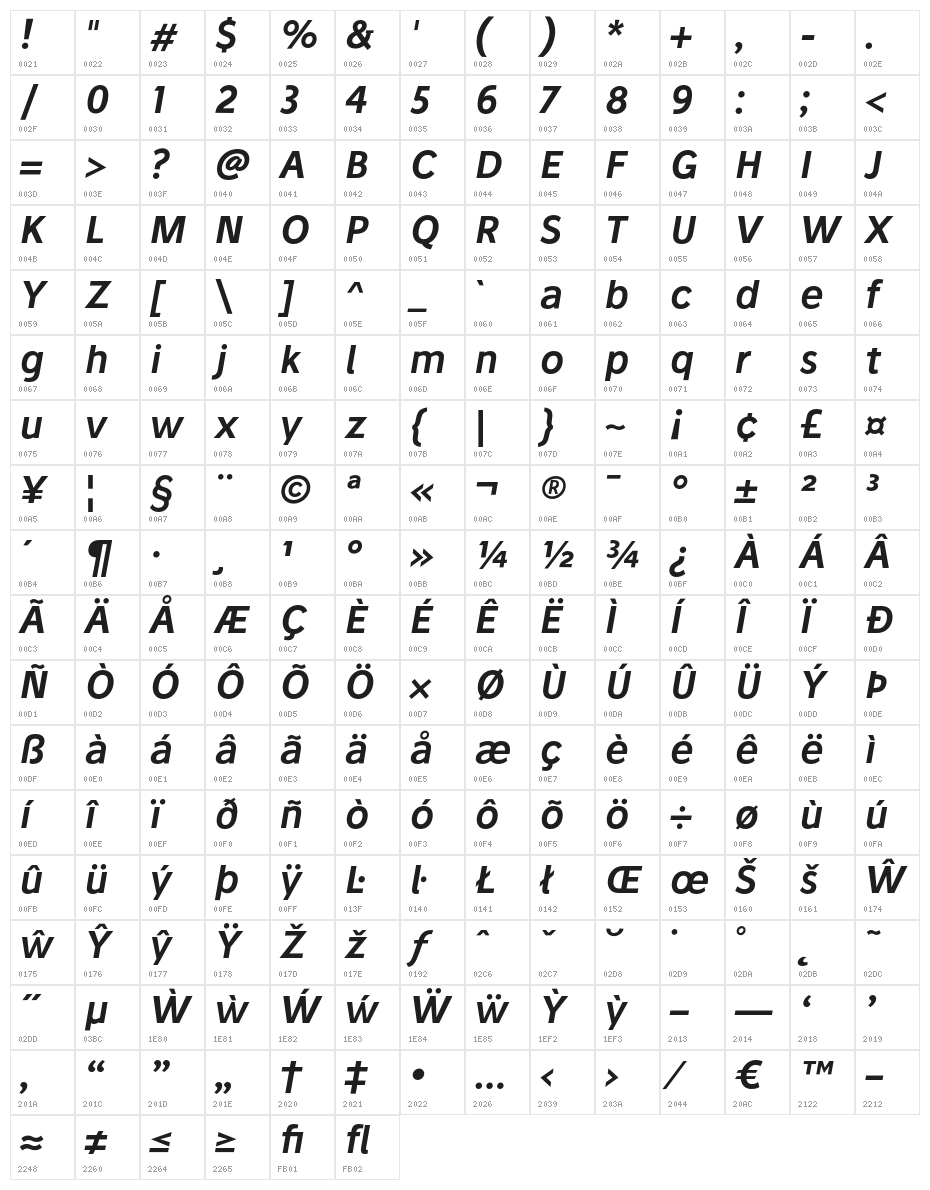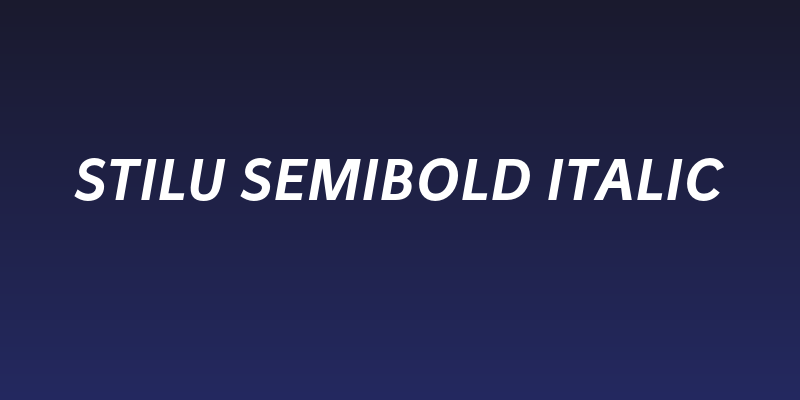
Stilu SemiBold Italic Font
Stilu SemiBold Italic Description
This font exhibits a modern and sleek design with a semi-bold weight, providing a strong presence while maintaining elegance. The italic style adds a dynamic and forward-leaning appearance, enhancing its contemporary feel. The characters are well-proportioned with a slight slant, contributing to its readability and aesthetic appeal. The font features smooth curves and clean lines, making it versatile for various design applications. Its balanced character spacing ensures clarity and legibility, even at smaller sizes. The numerals and special characters are consistent with the overall style, offering a cohesive look across all elements.
| Proposed Projects | Ideal for branding, advertising, and editorial design projects that require a modern and dynamic touch. |